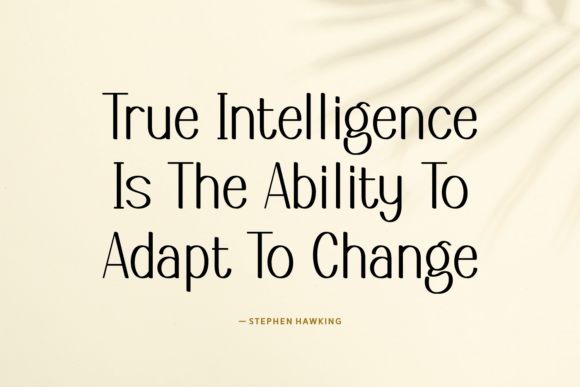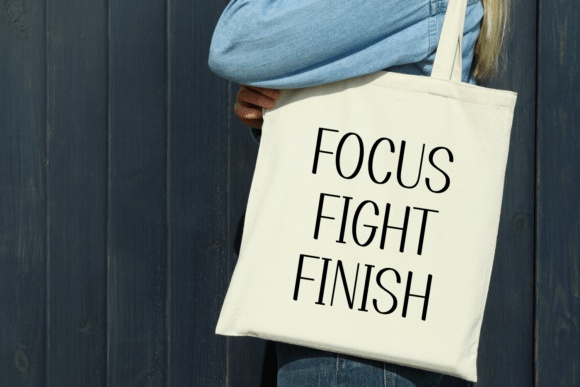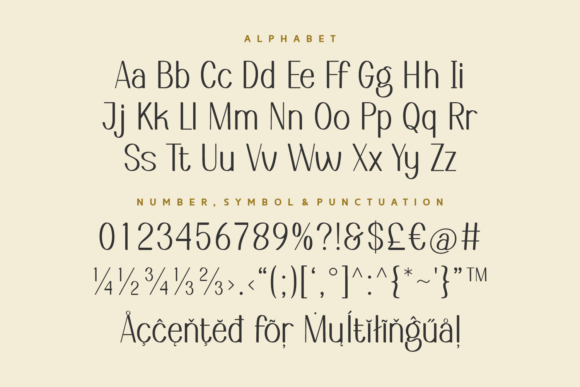
Introduction to Believe in Solutions Font
Remember that moment when you finally nailed the perfect design for your client’s logo? The sense of accomplishment and pride that comes with it is what drives us to keep pushing the boundaries of creativity. For designers, finding the right font can be the missing piece that makes all the difference between a good design and a great one.
Enter the Believe in Solutions Font, a refined sans serif typeface that embodies the perfect blend of modern minimalism and warmth. Its clean lines, tall x-height, and smooth rounded corners make it an ideal choice for branding, editorial layouts, and wellness or lifestyle projects. With its subtle elegance, this font conveys clarity and confidence without sacrificing approachability, making it a valuable asset for any creative project.
Key Features of Believe in Solutions Font
- High-quality design: Believe in Solutions Font is designed to meet the needs of creative projects, offering a professional and modern look.
- Transparent background: This font features a transparent background, making it easy to layer and blend with other design elements.
- High-resolution design: Believe in Solutions Font is designed at a high resolution (300 DPI), making it suitable for use in print and digital applications.
- Unique characteristics: This font features a unique blend of modern and elegant styles, making it perfect for use in creative projects such as branding, packaging, and advertising.
- Design resource: Believe in Solutions Font is a valuable design resource for anyone working on a creative project, offering a high-quality and versatile font option.
Honest Review: Believe in Solutions Font
I recently stumbled upon the Believe in Solutions Font while searching for free design resources for my creative project. The font caught my attention due to its unique and modern design.
Here are some pros and cons I’ve observed:
- ✨ Unique Design: Believe in Solutions Font has a distinctive look that can add a touch of sophistication to any design. Its clean lines and modern aesthetic make it perfect for creative projects.
- ✨ High Quality: The font is well-designed and looks professional, which is ideal for various design applications.
- ⚠️ Limited Font Variations: The font comes with limited variations, which might not be ideal for projects requiring multiple font styles.
Overall, I’m impressed with the Believe in Solutions Font. Its unique design and high quality make it a valuable addition to my design resource library. While it may have some limitations, it’s a great option for designers looking for a free, high-quality font.
As a designer, I highly recommend considering the Believe in Solutions Font for your next creative project. Its transparent background and modern design make it an excellent choice for various design applications.
Tips for Getting the Most Out of Believe in Solutions Font
To get the most out of this font, use it in combination with a transparent background to create a modern and sleek design. Experiment with different font sizes and styles to add emphasis to your design elements. This font is also ideal for creating headings and titles that grab attention.
Common Use Cases for Believe in Solutions Font
The Believe in Solutions Font is perfect for a variety of creative projects, including business cards, brochures, and presentations. Its modern and professional look makes it ideal for any design project that requires a high-quality font.
Yes, the Believe in Solutions Font supports transparent backgrounds. This feature allows you to create visually appealing designs with a clear background, making it ideal for creative projects that require a high level of design flexibility.